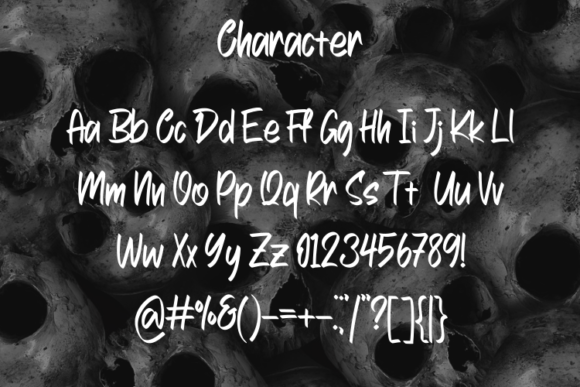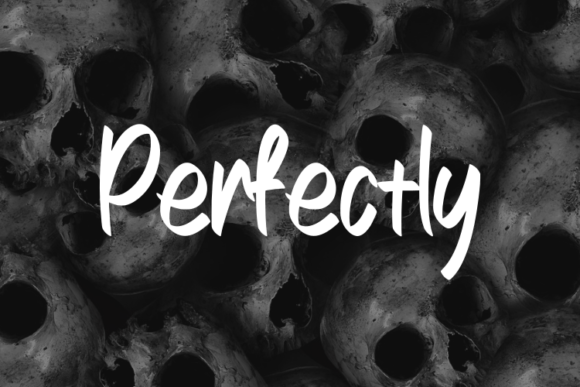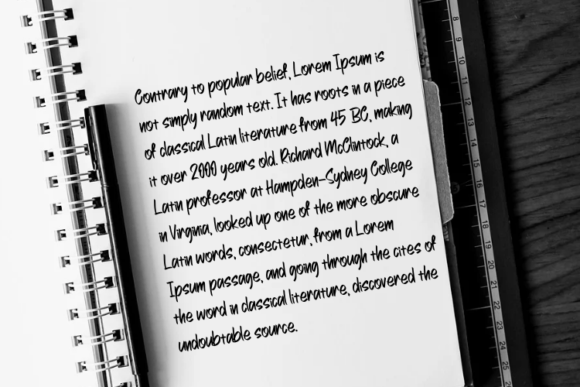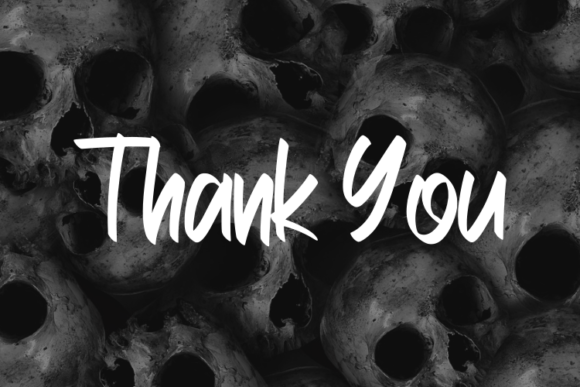
Introducing Dead Streed Font: Elevate Your Designs with Elegance and Luxury
In the world of typography, fonts play a crucial role in conveying the tone and aesthetic of a design. For designers and crafters looking for a typeface that exudes elegance and luxury, Dead Streed Font is an excellent choice. This script typeface boasts a simple yet modern look, making it perfect for a wide range of applications, from logos and titles to fashion brands and quotes.
What is Dead Streed Font?
Dead Streed Font is a script typeface designed with a simple style and modern look. Its clean lines and elegant curves make it an ideal choice for designers seeking a sophisticated and luxurious feel. The font’s versatility allows it to be used in various contexts, including:
- Elegant logos and branding
- Book and movie design titles
- Fashion brands and clothing
- Magazines and editorials
- Fonts and quotes
Key Features of Dead Streed Font
So, what makes Dead Streed Font stand out from other typefaces? Here are some of its key features:
- Simple yet elegant design: Dead Streed Font’s simple style makes it easy to read and understand, while its elegant curves add a touch of sophistication.
- Modern look: The font’s modern design ensures that it looks contemporary and fresh, making it perfect for designs that require a modern aesthetic.
- Versatility: Dead Streed Font can be used in a wide range of applications, from logos and titles to body text and quotes.
- Luxurious feel: The font’s elegant design and modern look combine to create a luxurious feel that’s perfect for high-end brands and designs.
Why Choose Dead Streed Font?
With so many typefaces available, why should designers and crafters choose Dead Streed Font? Here are some compelling reasons:
- Elegance and sophistication: Dead Streed Font adds a touch of elegance and sophistication to any design, making it perfect for luxury brands and high-end designs.
- Readability: The font’s simple design ensures that it’s easy to read and understand, making it perfect for body text and quotes.
- Flexibility: Dead Streed Font can be used in a wide range of applications, from print to digital media.
- Uniqueness: The font’s modern design and elegant curves make it stand out from other typefaces, ensuring that your designs look unique and distinctive.
Tips for Using Dead Streed Font
To get the most out of Dead Streed Font, here are some tips for using it effectively:
- Pair it with contrasting fonts: Dead Streed Font looks great when paired with contrasting fonts, such as sans-serif or serif typefaces.
- Use it for headlines and titles: The font’s elegant design and modern look make it perfect for headlines and titles.
- Experiment with different colors: Dead Streed Font looks great in a range of colors, from metallic and pastel shades to bold and bright hues.
In conclusion, Dead Streed Font is an excellent choice for designers and crafters looking for a typeface that exudes elegance and luxury. Its simple yet modern design, versatility, and luxurious feel make it perfect for a wide range of applications. By incorporating Dead Streed Font into your designs, you can add a touch of sophistication and elegance that will elevate your work to the next level.